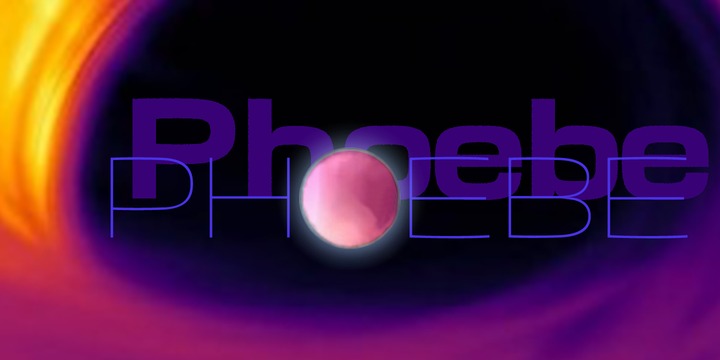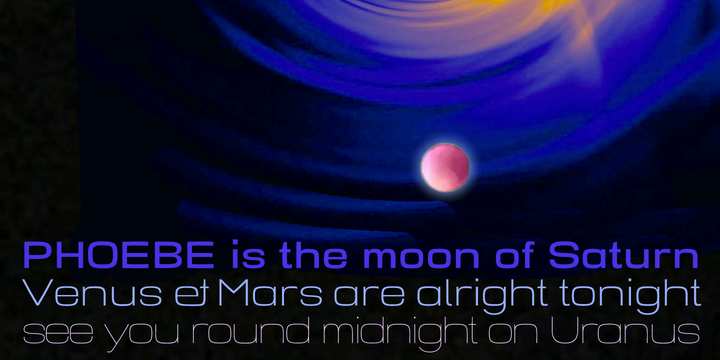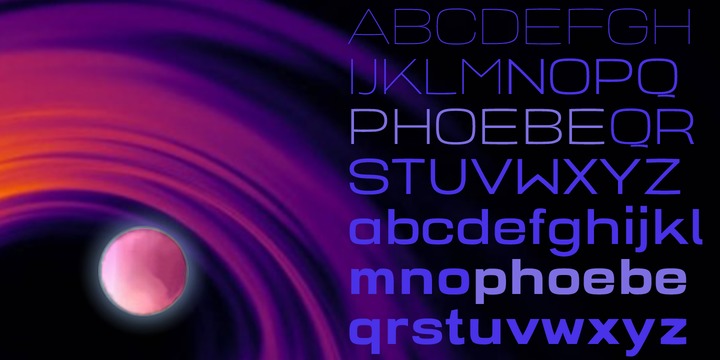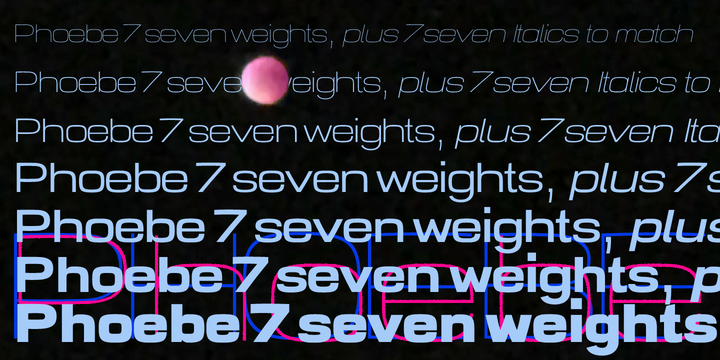
Phoebe Font Family
About this font family
Phoebe is an experimental font, roughly based on a kind of too wide square. But as it is with experiments, they tend to live an own life, uncontrollable. there are very few straight lines in this font and it looks familiar but then it doesn’t. Phoebe is a Titan as well as one of the outer moons of Saturn and Venus and Mars are alright tonight. Phoebe comes in 7 weights and all of them are quite useful once you start using them. Just look at the font and enjoy.